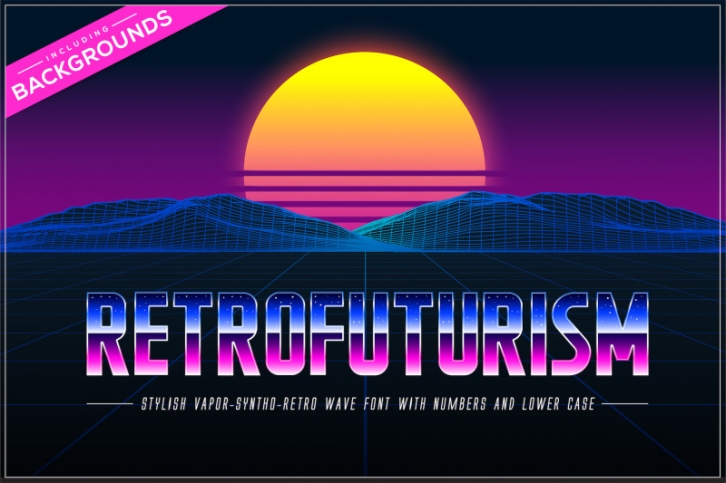
This pack contains Retrofuturism trendy Vaporwave, Synthwave, Retrowave Styled Color OpenType Font in .OTF file format with lower-case and numbers (Adobe Illustrator 2018+). Also this pack contains 4 additional vaporwave backgrounds + 2 sample flyers. Each letter and number also introduced in big size PNG with transparency and PSD formats.